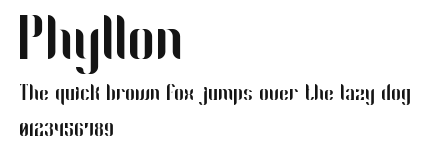
• Font Name: Phyllon
• Designer: João Paulo Faraco
• Description: Phyllon was built with FontStruct
Phyllon.ttf is a modern, elegant sans-serif font designed for ultimate readability and visual harmony. Perfect for branding, headlines, web design, and print materials.